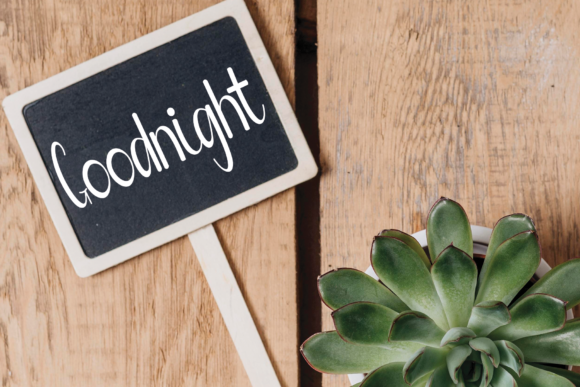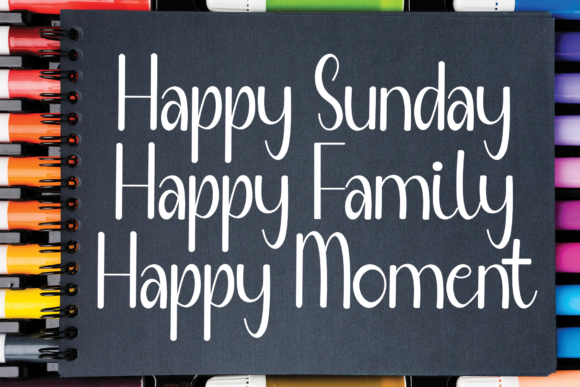
Designer Vintage Font
db-ku.com - Script & Handwritten -- Designer Vintage is a clean, casual and friendly handwritten font that was crafted with great care to produce the expected results. This font can be used to write various kinds of products according to their individual needs.